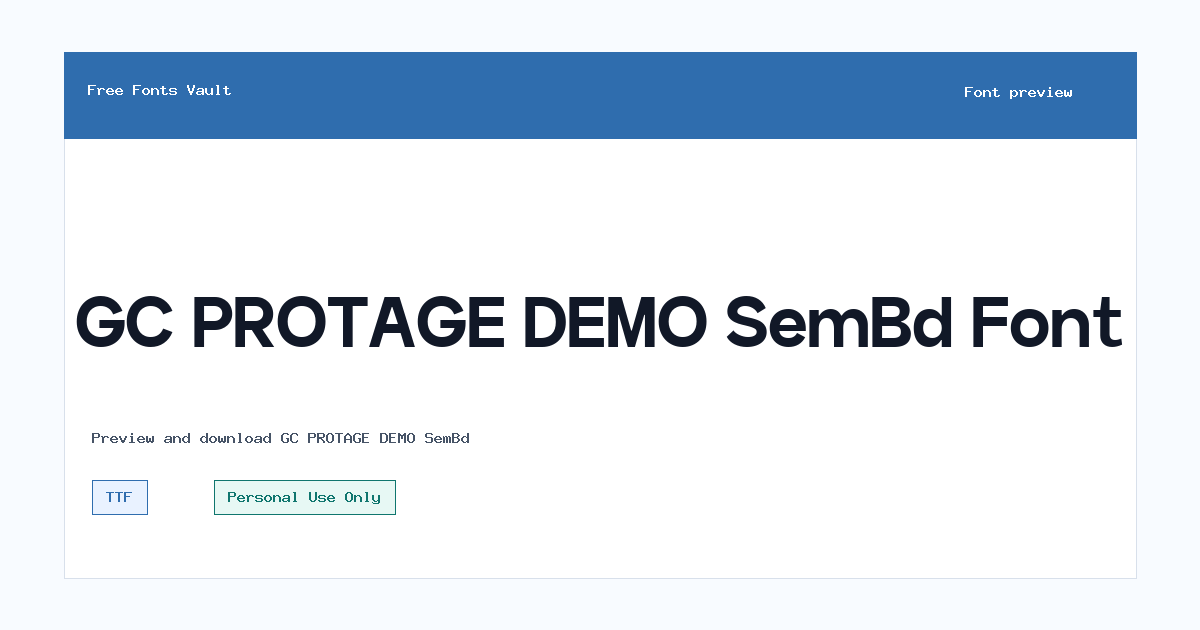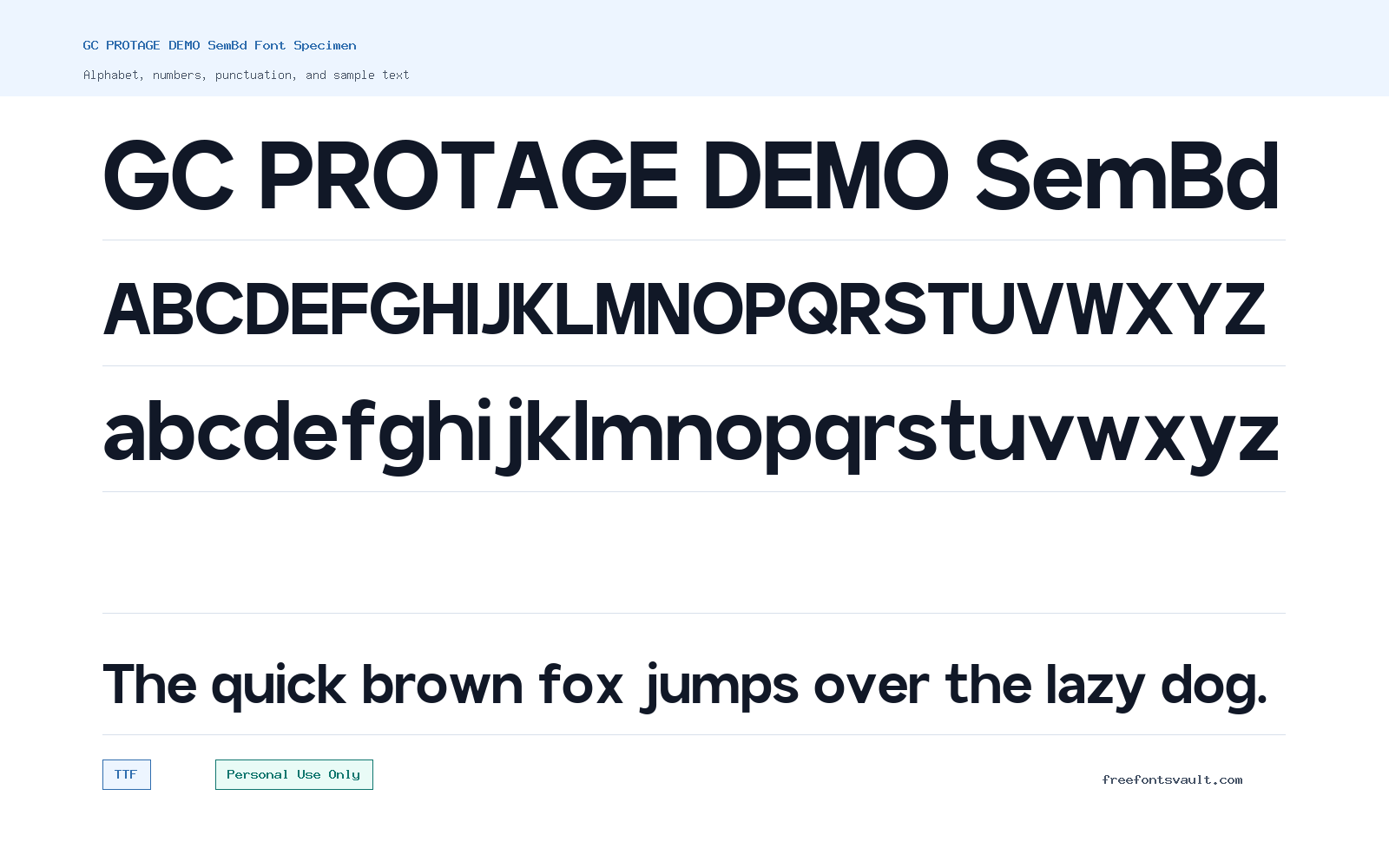
GC PROTAGE DEMO SemBd
- Designer Dwi Indah Fadhilatul Amanah of Glyphonic
GC PROTAGE DEMO SemBd font.
GC PROTAGE DEMO SemBd is a semi-bold style from the GC Protage family, designed for personal projects that need a clean sans serif with more weight than a regular cut. It is a practical choice when you want headings, labels, or short display text to feel firm without moving into an overly heavy look.
About GC PROTAGE DEMO SemBd Font
The name SemBd points to a semi-bold role within the GC Protage family. In use, that means this font is best treated as a stronger text or display weight rather than a delicate body-copy face. The available file is a TTF font, which makes it easy to test in common design apps, desktop preview tools, and many web or mockup projects. Its normal style and 700 weight value make it useful for titles, interface labels, menu headings, poster lines, social graphics, and other places where a little extra emphasis helps the words stand out.
For the best result, try GC PROTAGE DEMO SemBd with short phrases before using it in long paragraphs. Semi-bold sans serif fonts often work well for names, category labels, section headers, thumbnails, simple brand mockups, and presentation slides. If you are building a full layout, pair it with a lighter, quieter sans serif or a readable serif for body text so the page keeps a clear hierarchy. In the preview box, test uppercase words, numbers, punctuation, and mixed-case headlines. That quick check will show whether the spacing and weight fit your exact design.
- Semi-bold sans serif weight suited to headings, labels, and short display text
- Part of the GC Protage family rather than a separate unrelated font family
- Good candidate for personal mockups, posters, social posts, and presentation titles
GC PROTAGE DEMO SemBd is credited to Dwi Indah Fadhilatul Amanah of Glyphonic.
Use this font where emphasis matters: short headlines, names, labels, covers, and graphic text. Avoid relying on it for long reading passages until you test line spacing, letter spacing, and small-size clarity in your own layout. If your project will be public, client-facing, monetized, printed for sale, or used in branding, confirm the correct license before release or distributing the design.
What type of font is GC PROTAGE DEMO SemBd?
It is a semi-bold sans serif style from the GC Protage family. It is best suited to stronger text settings such as headings, labels, and short display copy.
Is SemBd a separate font family?
No. SemBd describes the semi-bold weight or style within the GC Protage family, so it should be understood as part of that family rather than an unrelated typeface.